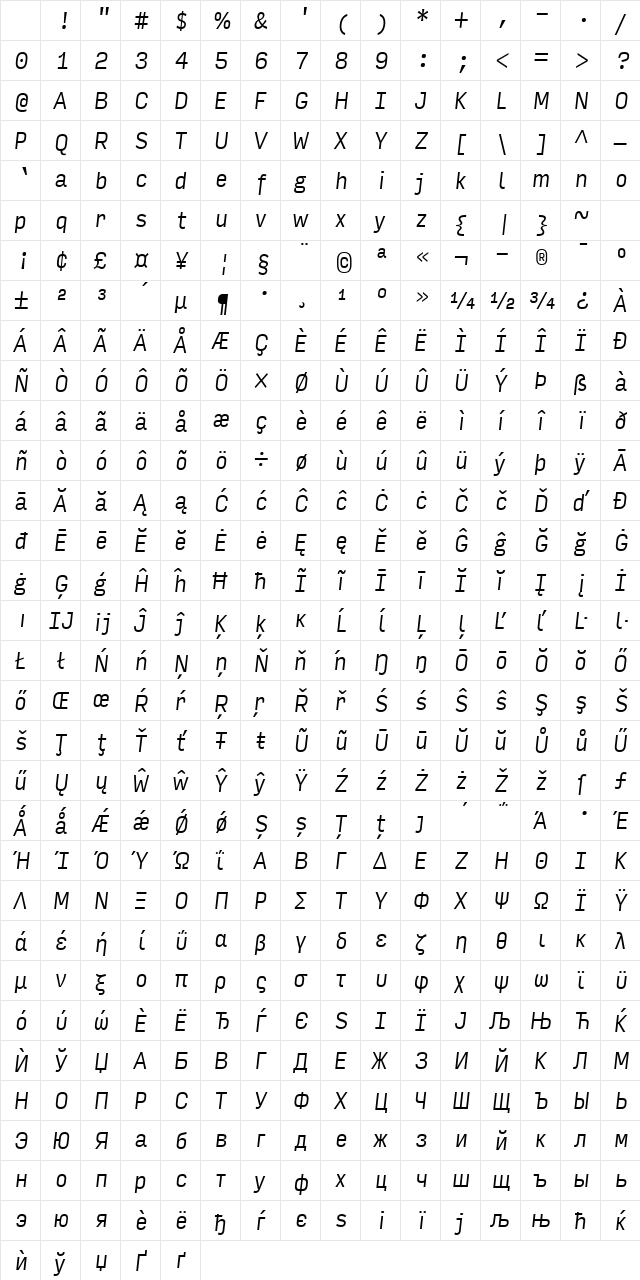
Complete Input Sans Condensed Light Italic glyph index. Displaying only characters natively supported by Input Sans Condensed Light Italic font.
Input Sans Condensed is a composed and adaptable typeface that performs quietly and consistently across a wide range of design contexts. The slanted form adds forward momentum and visual energy. Its slender proportions lend an understated elegance to any composition. Its narrow stance lets it pack a punch even in space-constrained designs.
Pro Tip: Use Input Sans Condensed for emphasis, pull quotes, and subheadings where its slanted energy can add rhythm to the layout.